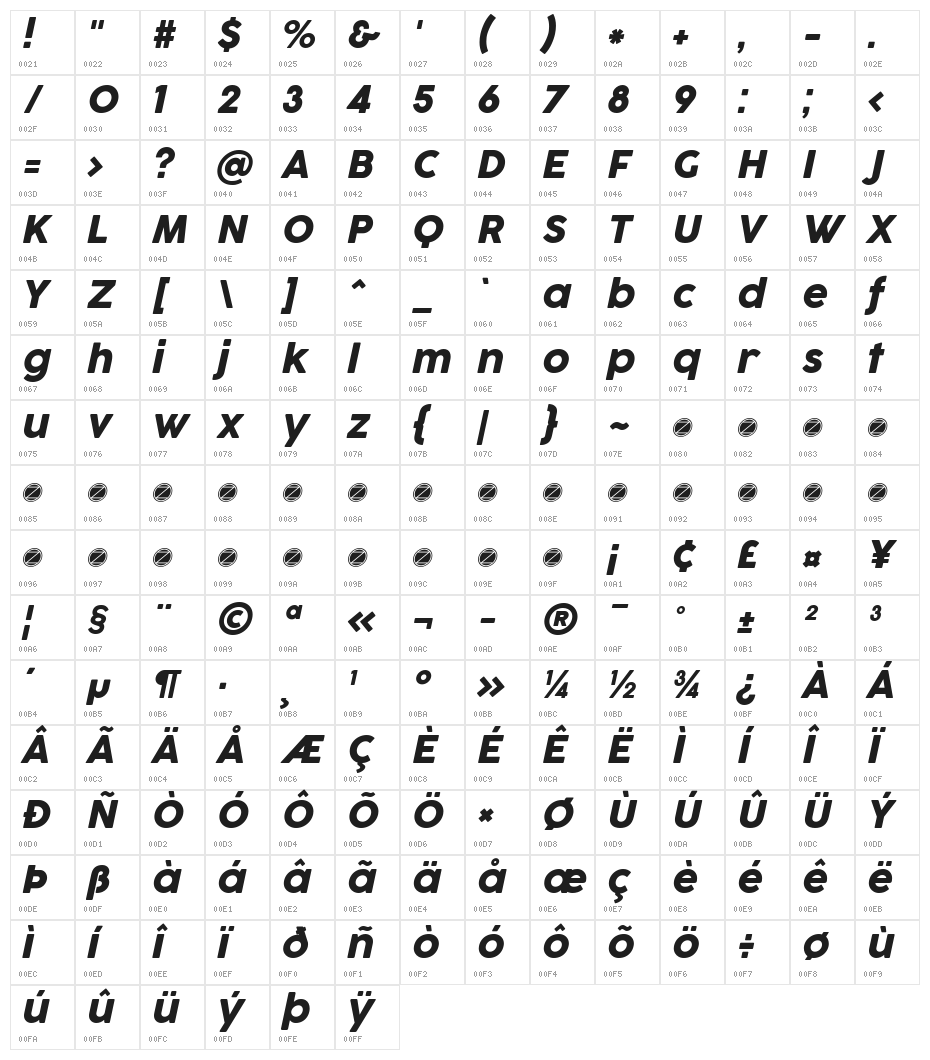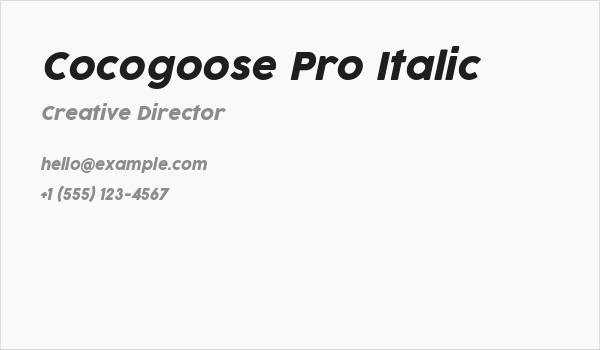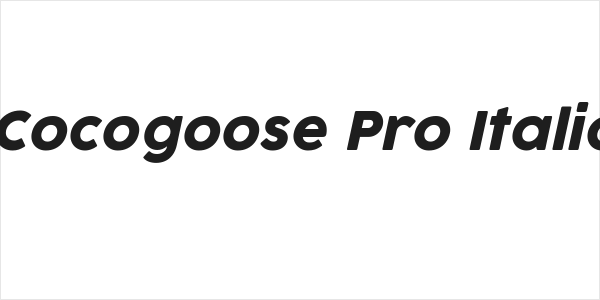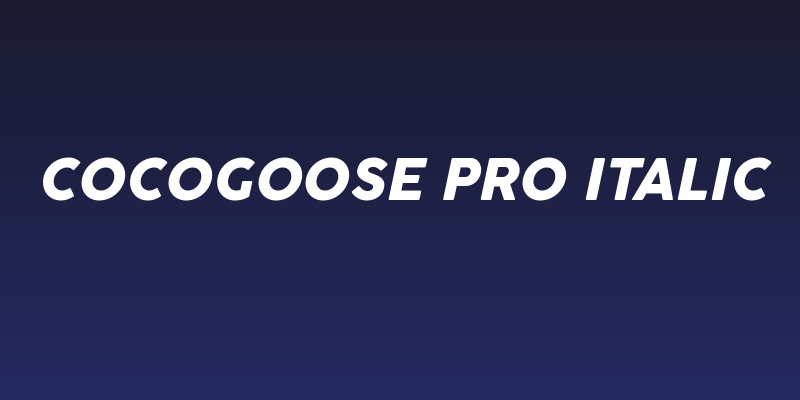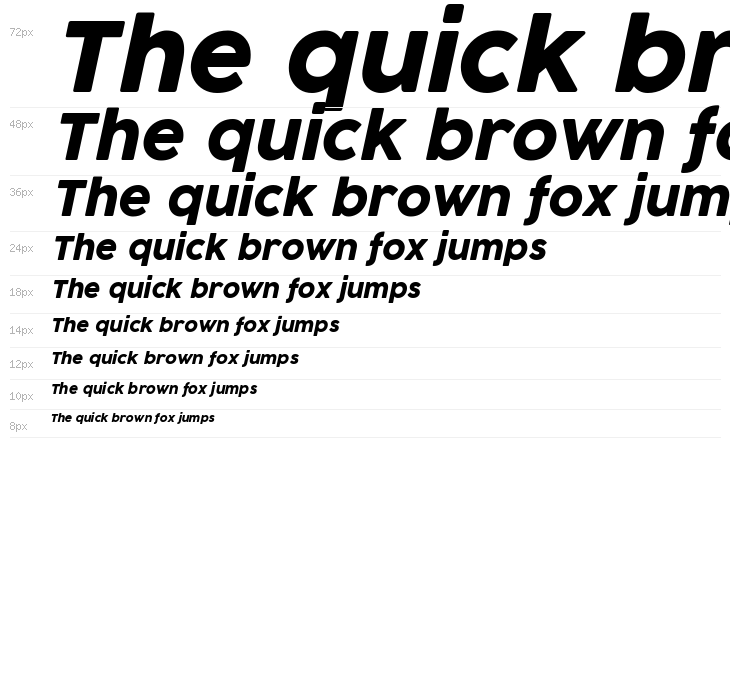
Cocogoose Pro Italic Font
Cocogoose Pro Italic Description
This font features a bold and dynamic style with a modern flair. Its italicized form adds a sense of movement and energy, making it stand out in any design. The characters are well-defined with a slight slant, giving them a sleek and contemporary look. The font maintains a consistent weight throughout, providing a strong visual impact. Its geometric shapes and clean lines contribute to its modern aesthetic, while the boldness ensures readability and presence. The spacing between characters is balanced, allowing for clear legibility even at smaller sizes. This font is versatile, suitable for various design projects that require a touch of modernity and boldness.
| Proposed Projects | Ideal for branding, advertising, headlines, and digital media projects. |